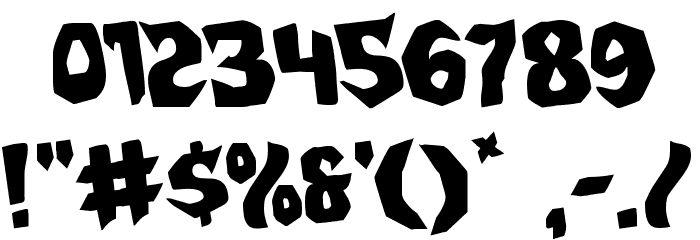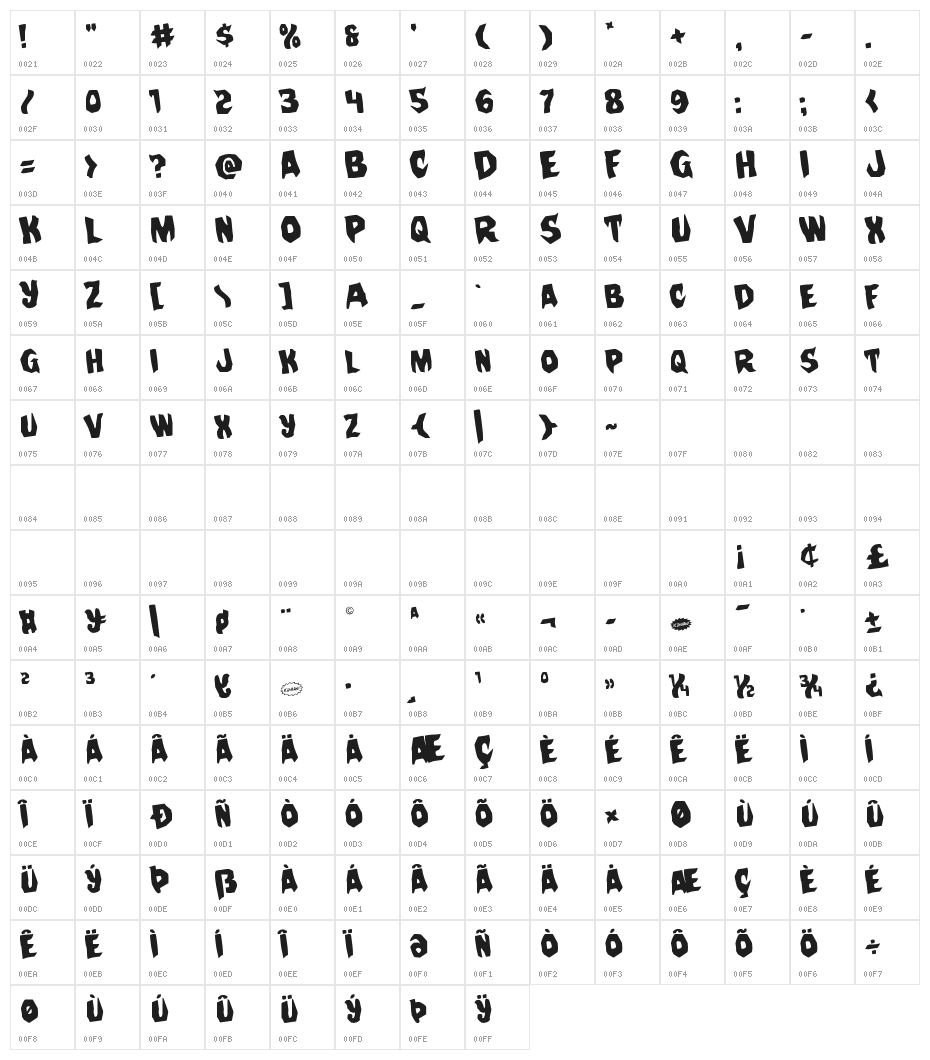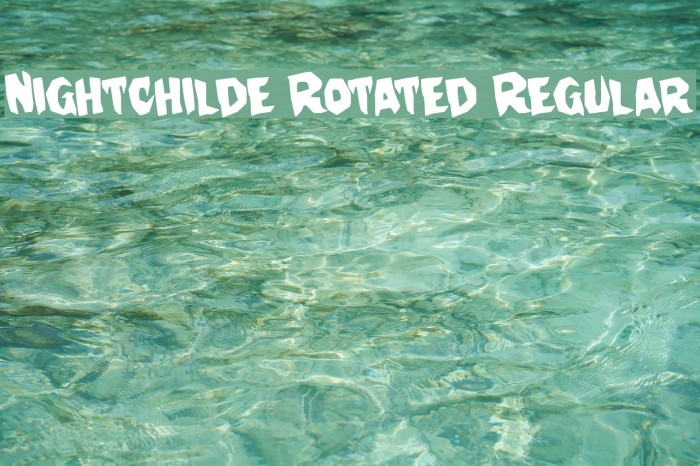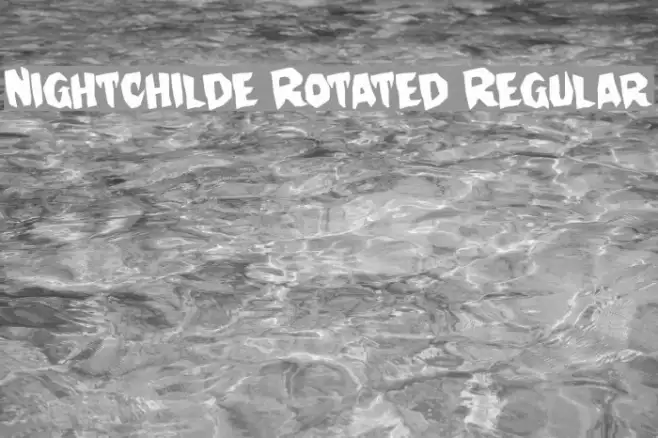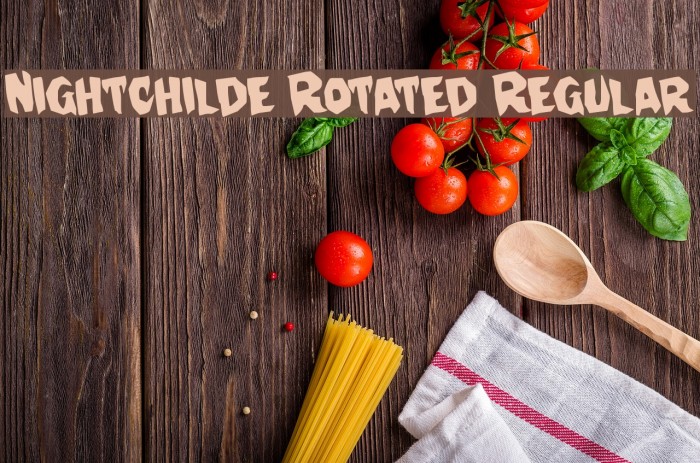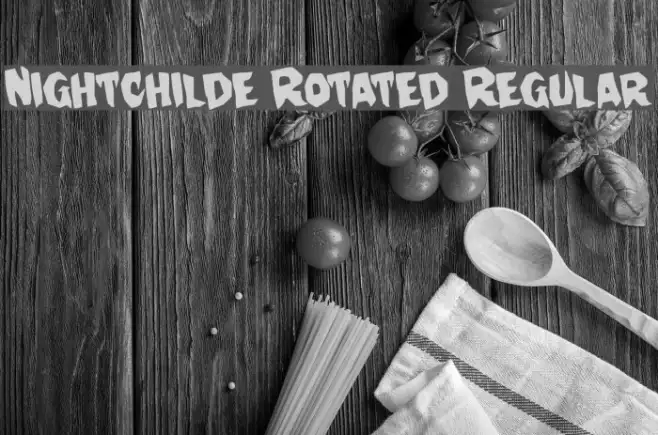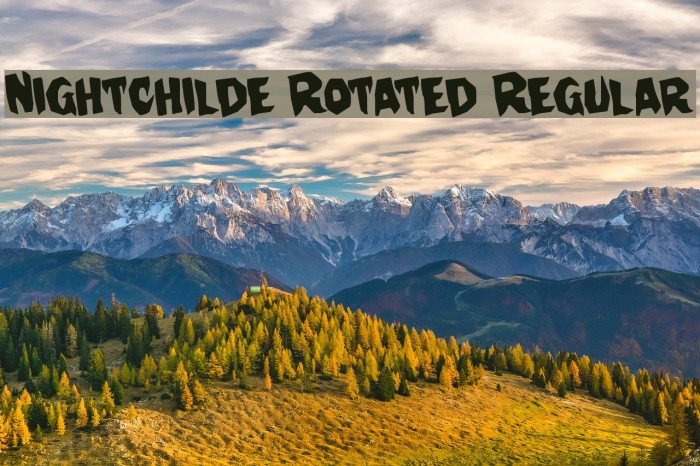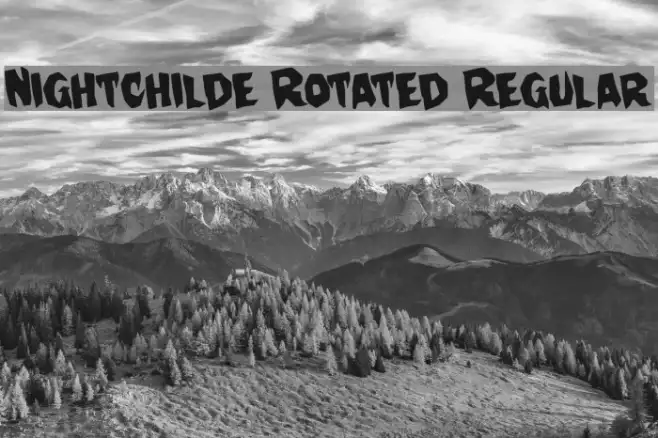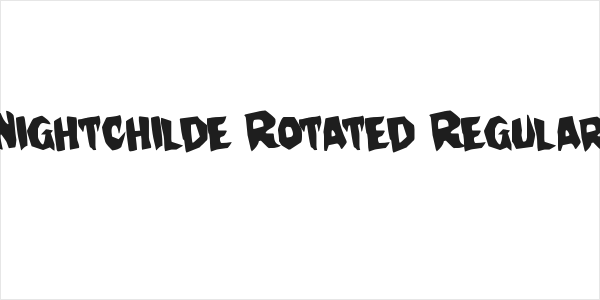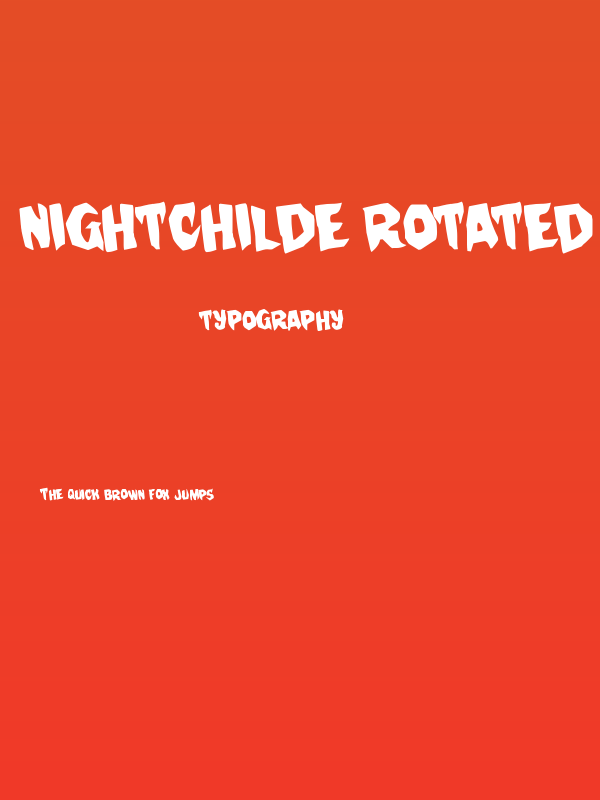
Nightchilde Rotated Regular Font
Nightchilde Rotated Regular Description
This font features a bold and dynamic style with a playful, slightly chaotic appearance. The characters are heavily stylized with irregular edges and a hand-drawn feel, giving it a unique and eye-catching look. The uppercase and lowercase letters maintain a consistent weight, while the numbers and special characters follow the same bold and expressive design. The overall aesthetic is reminiscent of graffiti or street art, making it ideal for projects that require a strong visual impact.
| Proposed Projects | Ideal for posters, album covers, street art-inspired designs, and any project needing a bold, artistic touch. |